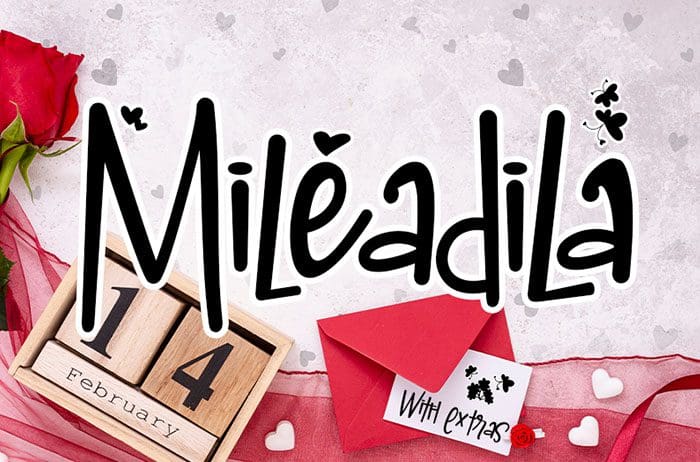
Free Mileadila Display Font
Mileadila Display Font
Free Mileadila display font is a sweet and simple font that’s perfect for adding a romantic charm to your next Valentine’s day project. Get inspired by its unique look! Created this font by Thomas Aradea. You can also search more free Display Fonts. Thanks!